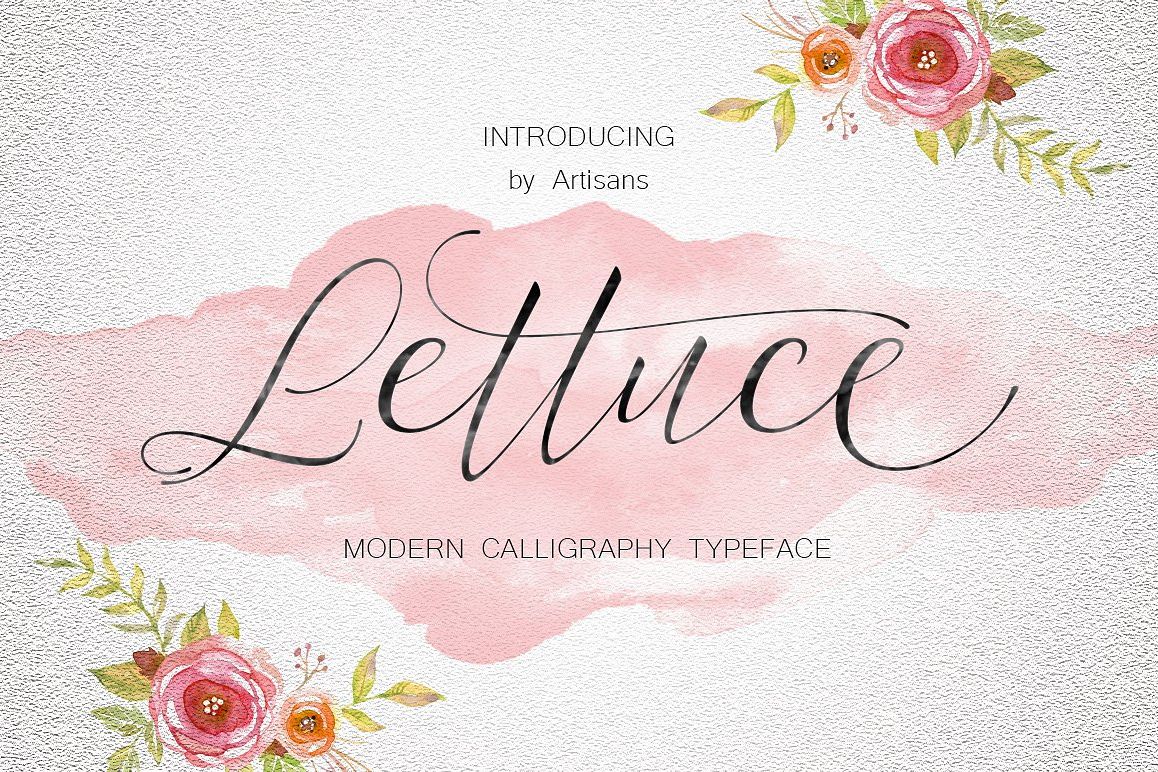
Lettuce
Lettuce is Modern Calligraphy. This font was designed by handwriting, and it has a modern and unique forms of calligraphy, the writing style is very natural.has 354 glyphs of which 185 alternate glyphThe Features of this fonts is;
• Standart ligatures
• Stylistic sets